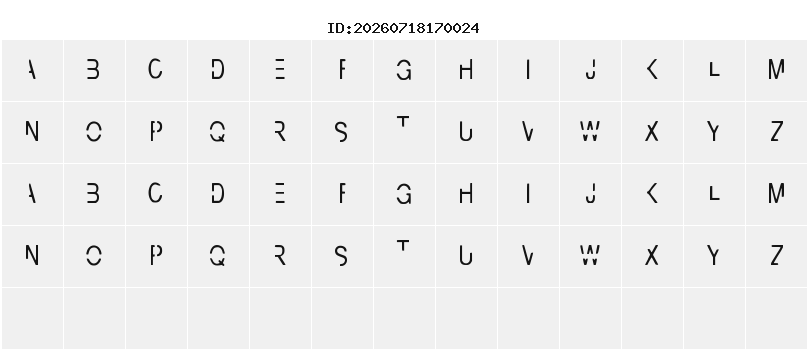
• Font Name: CyberBunny
• Full Font Name: CyberBunny
About CyberBunny.ttf
CyberBunny.ttf is a modern, elegant sans-serif font designed for ultimate readability and visual harmony. Perfect for branding, headlines, web design, and print materials.